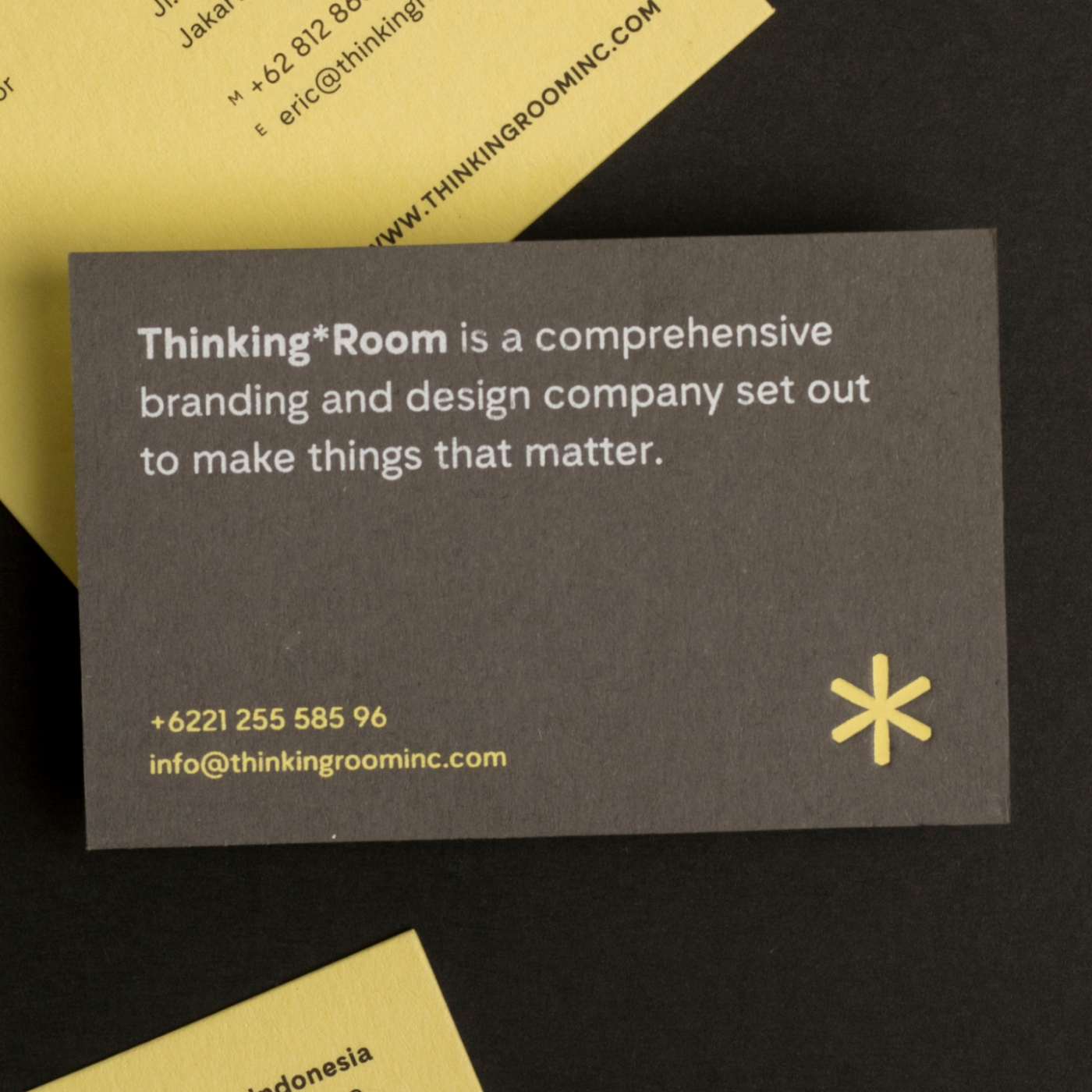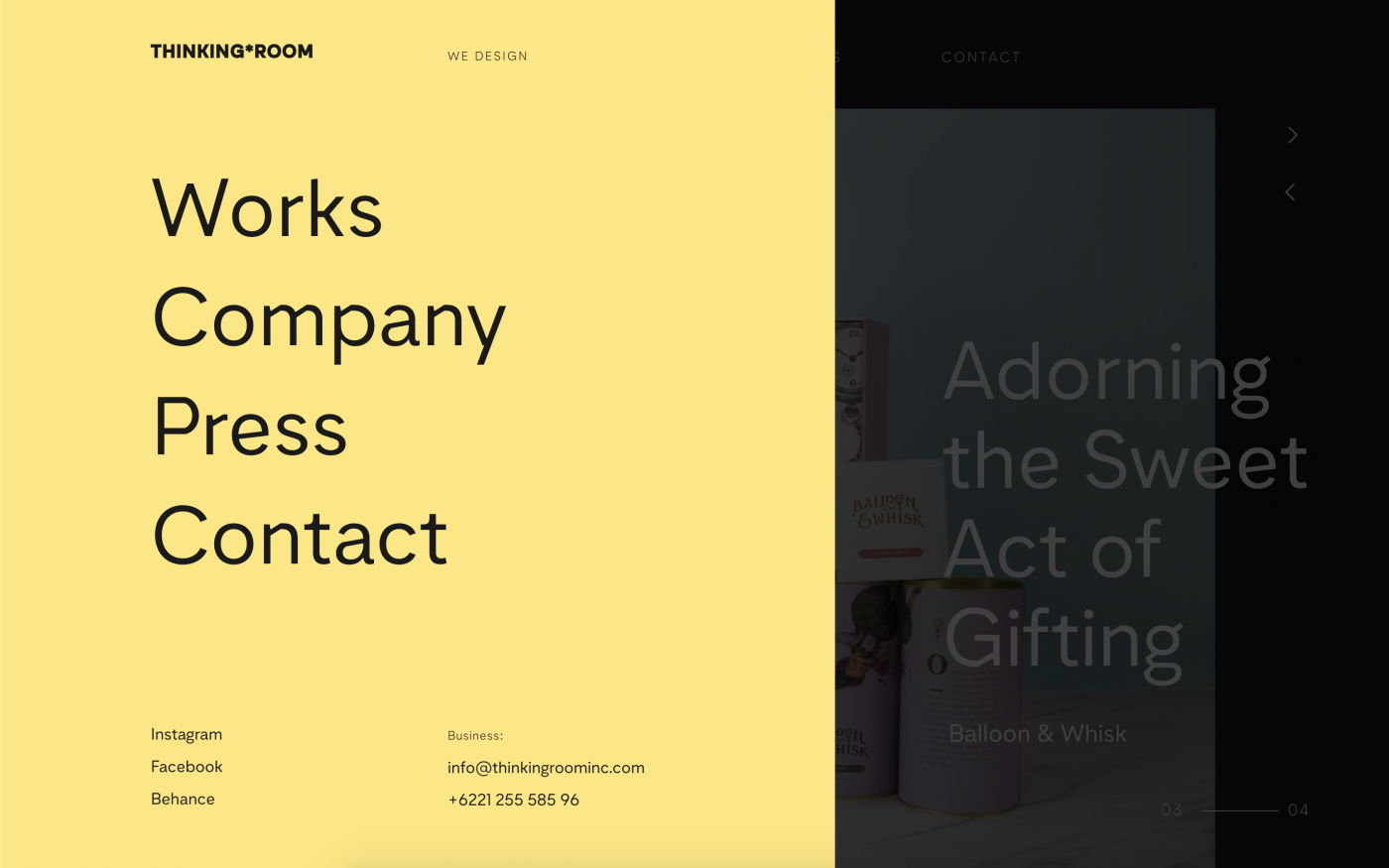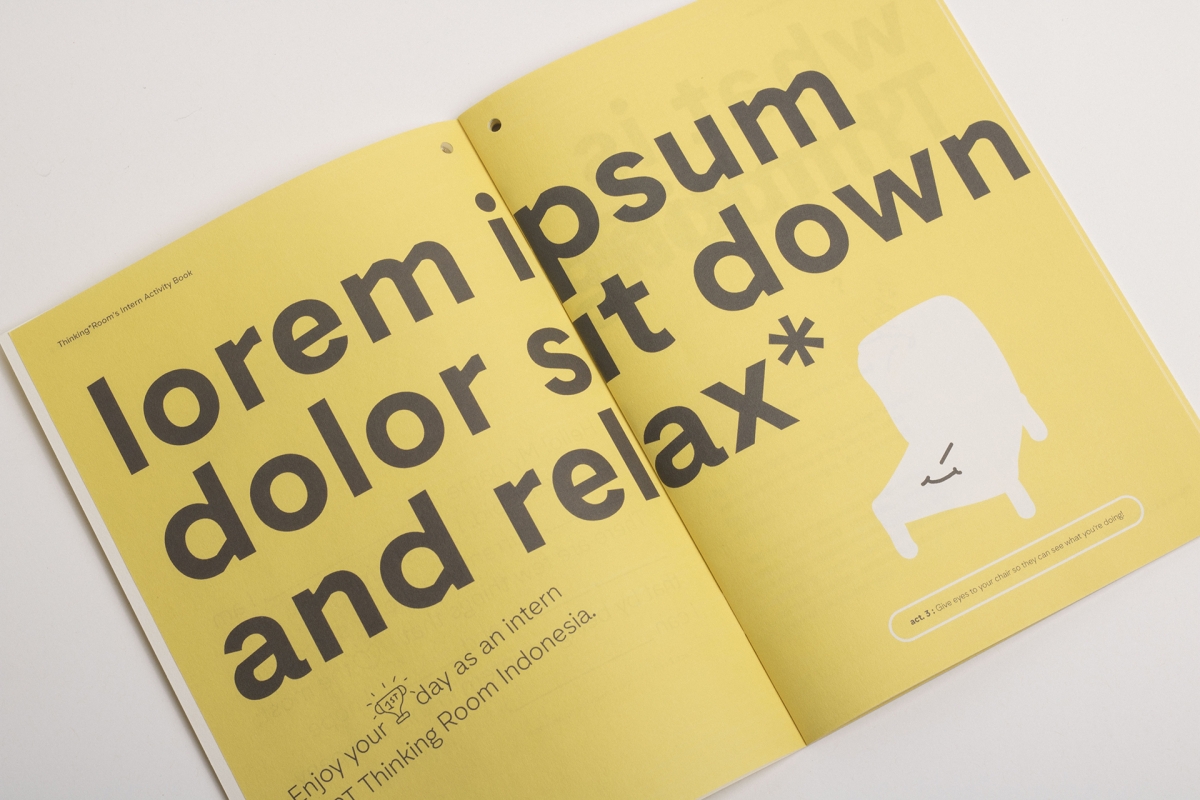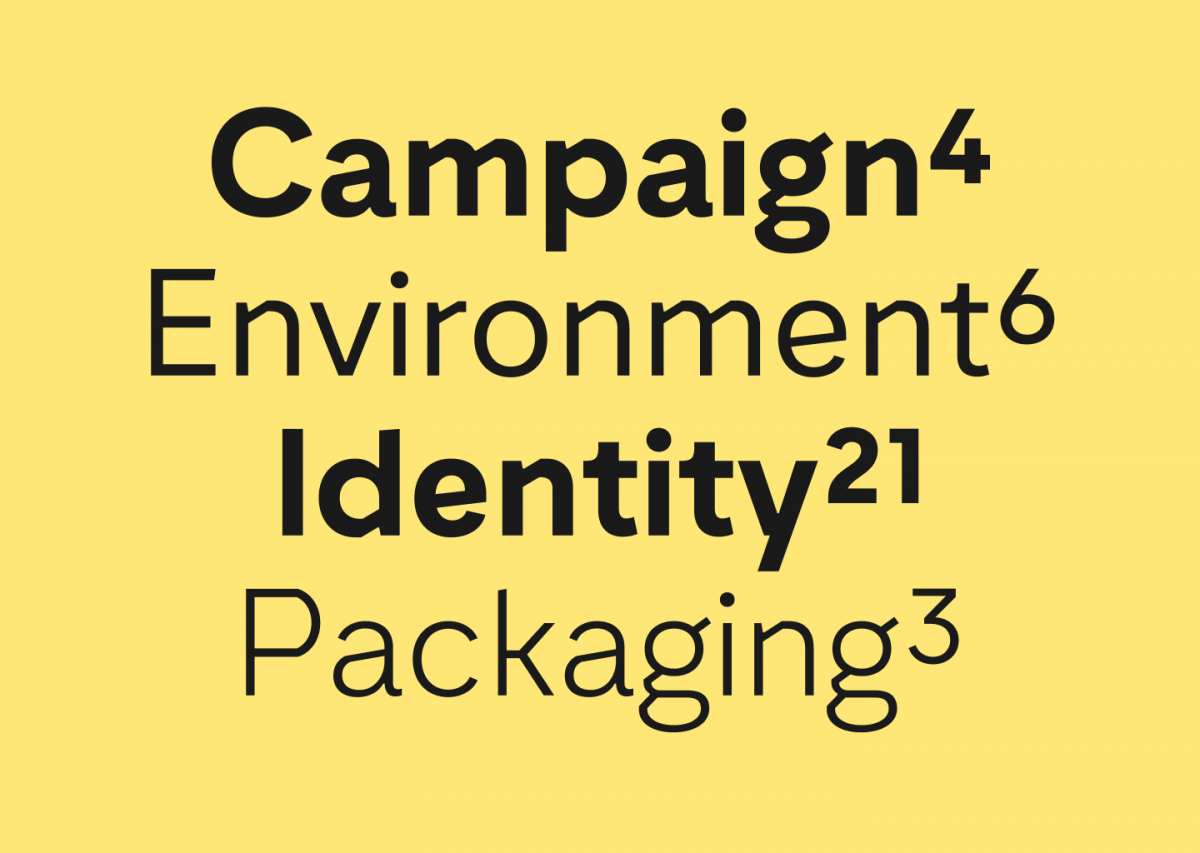
We designed custom typefaces exclusively for Thinking Room Inc internal communication, Jakarta based design company, in collaboration with Eric Widjaja, Ritter Willy Putra, and other Thinking Room designers. TR Grotesk is inspired by early twentieth century geometric sans serifs, with district characters like angular cuts, circular counters, and reimagined the balancing experimentally harmonized tones of how brands can shifting into the modernism styles without leaving the legacy behind. TR Grotesk were produced in 3 weights with italic uprights, equipped with several alternates Thinking Room’s identical asterisk symbols to play with.
Design Direction: Eric Widjaja, Ritter Willy, Ignatius Gregory, Ira Carella.
Family Name: TR Grotesk
Design: Tokotype Studio & Deni Anggara
Year: 2018
Classification: Sans Serif
Styles: 6